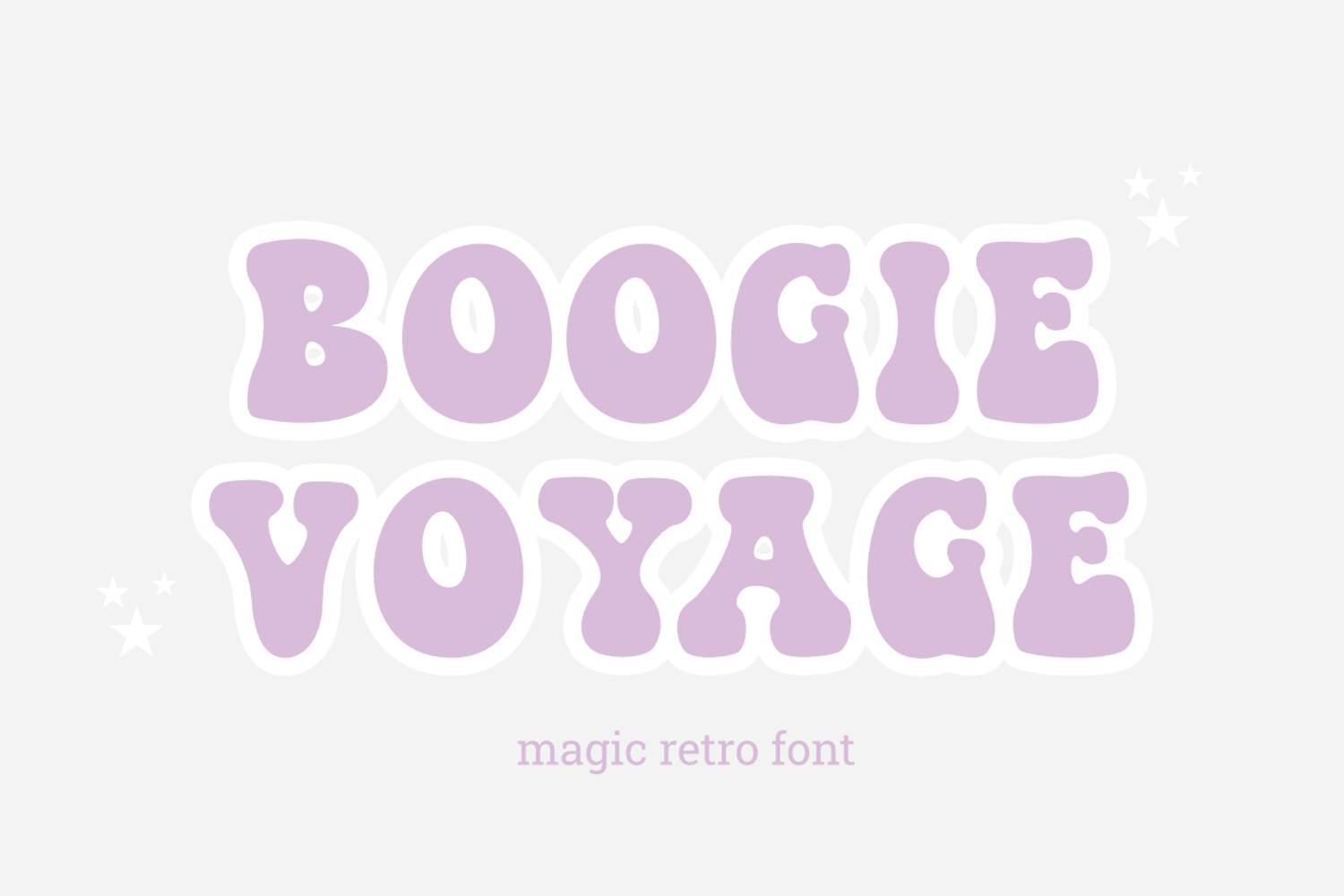
Boogie Voyage is a hand-drawn font with a groovy feel
This font is perfect for cricut projects, shirts, stickers, mugs, logos, social media quotes, branding, svg files and more!